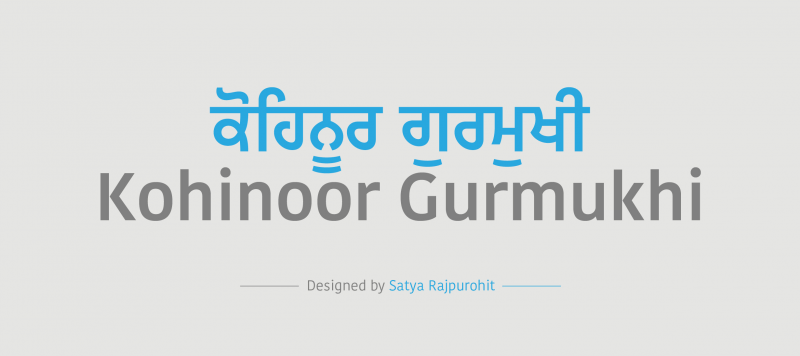
A sophisticated Gurmukhi sans-serif typeface suitable for both body and display text. Part of the super family Kohinoor Multiscript. A highly functional typeface family that is easy to work with and inviting to read.
Family Name | Kohinoor Gurmukhi |
Designer(s) | Satya Rajpurohit |
Release Date | September 5, 2011 |
Available Style | Light, Book, Demi, Medium, Bold |
Classification | Sans, Display |
Supported Languages | Punjabi |